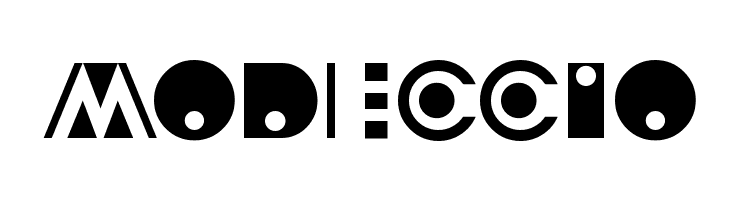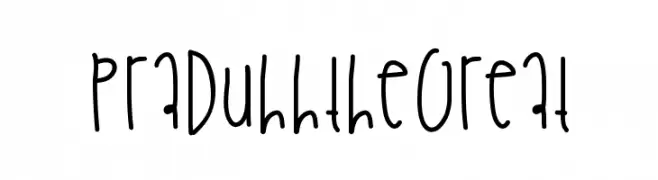
A playful, handwritten font with tall, narrow letters and smooth, rounded strokes.
A futuristic, geometric font with blocky, angular letterforms.
A playful and casual handwritten font with fluid, connected letterforms.
A playful handwritten font with fluid, irregular strokes and a lively character.
A bold, dynamic script font with a playful and energetic style.
A playful handwritten font with tall, narrow letters and a whimsical style.
A playful handwritten font with heart-themed decorations on each character.